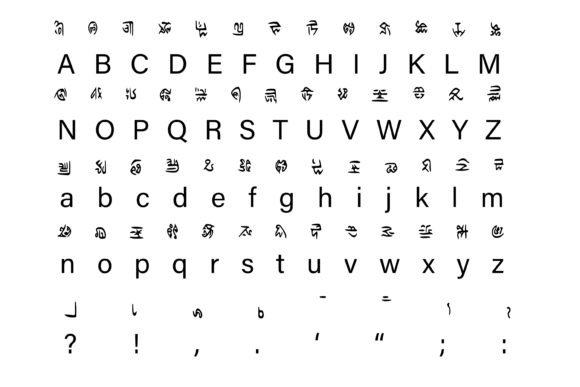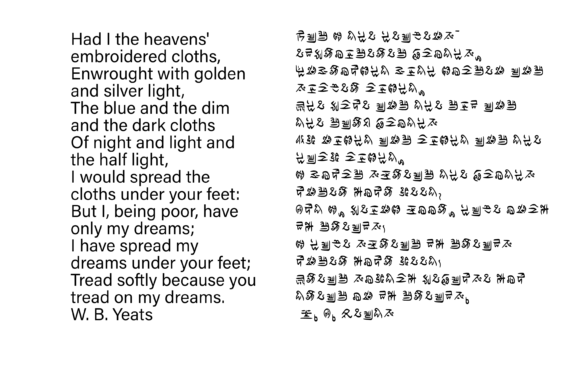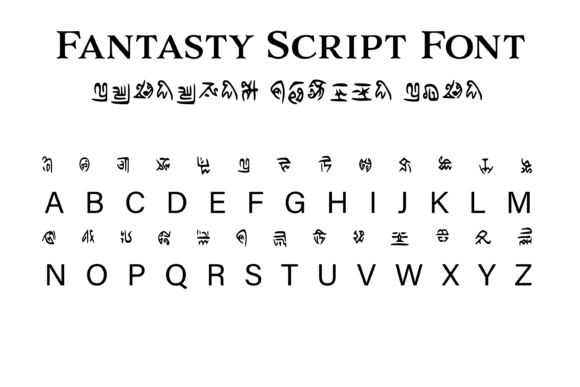
Fantasy Script 8 Font: The Perfect Addition to Your Fantasy World
Are you a designer, writer, or crafter working on a fantasy project? Look no further than the Fantasy Script 8 Font! This enchanting font is perfect for adding a touch of magic to your next Dungeons and Dragons campaign, fantasy LARP adventure, novel, or any other creative project. In this article, we’ll explore the features and benefits of the Fantasy Script 8 Font and why it’s a must-have for anyone working in the fantasy genre.
A Font Fit for Fantasy
The Fantasy Script 8 Font is a beautifully crafted font that is designed to evoke the sense of wonder and adventure that comes with fantasy worlds. With its intricate script and elegant flourishes, this font is sure to transport your readers to a world of magic and mystery. Whether you’re creating a title page for your novel, designing a logo for your LARP group, or crafting a menu for your fantasy-themed restaurant, the Fantasy Script 8 Font is the perfect choice.
The Fantasy Script 8 Font includes the standard English alphabet and basic punctuation, making it easy to use for a wide range of projects. The font is also highly legible, ensuring that your text is easy to read and understand, even at small sizes. With the Fantasy Script 8 Font, you can add a touch of fantasy to your project without sacrificing clarity or readability.
The Fantasy Script 8 Font is a versatile font that can be used for a wide range of design and crafting projects. Here are just a few ideas to get you started:
- Dungeons and Dragons campaigns: Use the Fantasy Script 8 Font to create eye-catching character sheets, maps, and handouts for your next D&D session.
- Fantasy LARP adventures: Add a touch of magic to your LARP group’s materials, including character sheets, posters, and event announcements.
- Novels and short stories: Use the Fantasy Script 8 Font to create beautiful title pages, chapter headings, and illustrations for your fantasy novel or short story.
- Crafting and scrapbooking: Add a touch of fantasy to your crafting and scrapbooking projects, including cards, invitations, and journal pages.
Why Choose the Fantasy Script 8 Font?
There are many fonts to choose from, but the Fantasy Script 8 Font stands out for its unique combination of elegance and playfulness. Here are just a few reasons why you should choose the Fantasy Script 8 Font for your next project:
- Unique and eye-catching: The Fantasy Script 8 Font is a one-of-a-kind font that will add a touch of magic to your project.
- Easy to use: The font includes the standard English alphabet and basic punctuation, making it easy to use for a wide range of projects.
- Highly legible: The Fantasy Script 8 Font is designed to be easy to read, even at small sizes.
- Versatile: The font can be used for a wide range of projects, from D&D campaigns to crafting and scrapbooking.
If you’re working on a fantasy project, the Fantasy Script 8 Font is a must-have. With its intricate script, elegant flourishes, and high legibility, this font is perfect for adding a touch of magic to your project. Whether you’re a designer, writer, or crafter, the Fantasy Script 8 Font is sure to become a favorite in your collection. So why wait? Download the Fantasy Script 8 Font today and start adding a touch of fantasy to your next project!